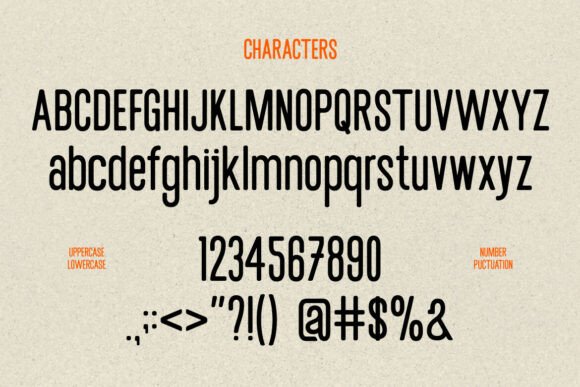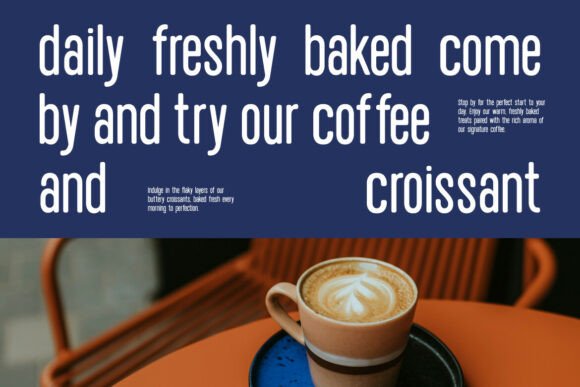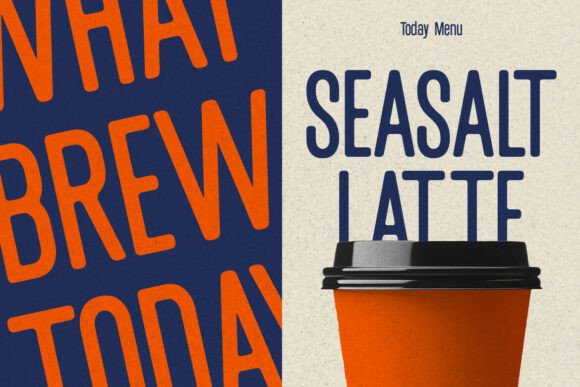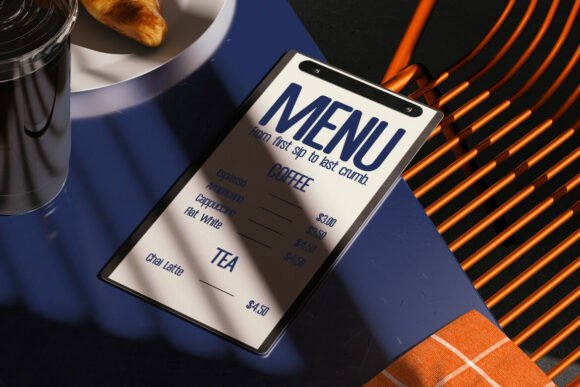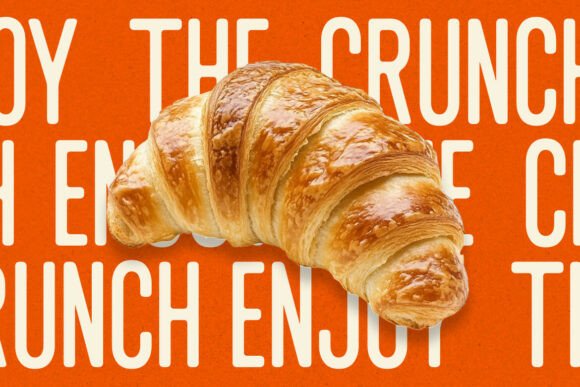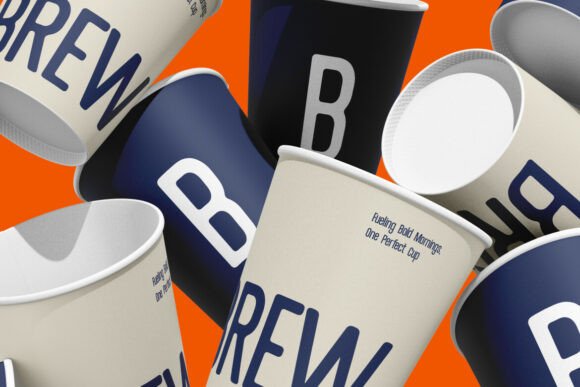
Introduction to Modentra Font
Have you ever stared at a blank canvas, a blank sheet of paper, or a blank screen, searching for the perfect font to bring your creative project to life? The struggle is real, especially when you’re looking for a font that exudes warmth, clarity, and a strong visual impact. That’s where the Modentra Font comes in – a modern, rounded, condensed sans-serif typeface designed to deliver exactly that.
As a designer, you know how crucial it is to have a reliable design resource that can elevate your work and make it stand out. The Modentra Font is a high-quality font that can be downloaded for free, making it an ideal choice for any creative project. Its smooth curves, balanced stroke weight, and transparent background ensure excellent readability, while its distinctive contemporary tone adds a touch of sophistication.
With its condensed structure and softly rounded terminals, the Modentra Font is perfect for space-efficient headlines, editorial content, and marketing materials that require a friendly yet modern typographic tone. Whether you’re designing a logo, creating social media graphics, or developing product packaging, the Modentra Font is an excellent choice that’s sure to leave a lasting impression.
Key Features of Modentra Font
- High-quality, professional font suitable for various creative projects, including logos, branding, and marketing materials.
- Transparent background, allowing for seamless integration with any design or image, making it ideal for creative projects.
- Modentra Font is available in 6 different styles, each with its unique characteristics and nuances, making it perfect for designers looking for a versatile font.
- Designed with high resolution in mind, Modentra Font is ideal for use in large-scale designs, such as billboards, posters, and signage.
Honest Review: Modentra Font
I recently had the opportunity to work with the Modentra Font on a creative project and I must say, I was impressed. This free download offers a high quality design resource that can elevate any design project.
- ✨ One of the standout features of the Modentra Font is its versatility. It can be used for a wide range of creative projects, from brochures to business cards.
- ✨ The font is highly customizable, allowing designers to easily adjust the spacing and size to fit their design needs.
- ✨ The transparent background option is a great feature, making it easy to integrate the font into any design.
However, I did encounter a few limitations. ⚠️ The font is not suitable for use in situations where a bold, dramatic effect is needed, as it can come across as a bit too subtle.
Overall, I would highly recommend the Modentra Font to designers looking for a high quality, versatile font for their creative project. Its ease of use and customization options make it a valuable design resource.
How to Use Modentra Font
The Modentra Font is a high-quality, free download design resource ideal for creative projects. With its sleek and modern design, it’s perfect for adding a touch of elegance to your presentations, documents, and designs.
The Modentra Font is perfect for a variety of creative projects, including presentations, documents, posters, and more. It’s also great for creating a consistent brand identity across your marketing materials.
Tips for Getting the Most Out of Modentra Font
To get the most out of the Modentra Font, be sure to pair it with a transparent background to really make it stand out. You can also experiment with different font sizes and colors to add visual interest to your design.